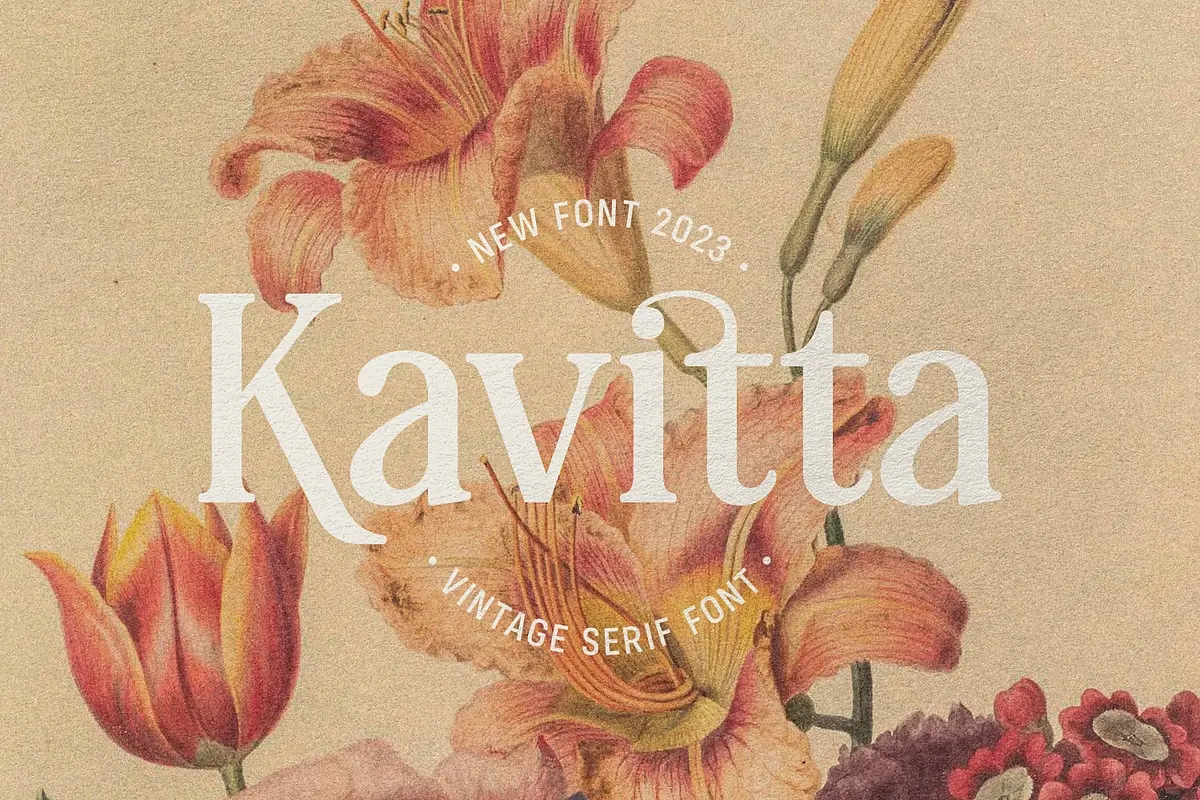
Kavitta - Modern Vintage Serif Free Download
Kavitta - Modern Vintage Serif Font Free Download
Please note, you must purchase this font for commercial use. However, you can easily download Kavitta - Modern Vintage Serif Font Free Download for personal use and testing purposes. Kavitta - Modern Vintage Serif Font is a stylish blend of modern and vintage design elements, offering sophisticated letterforms with a timeless appeal. Perfect for branding, editorial design, logos, and invitations, this font brings a refined, classic touch to any project. Whether you're working on a luxurious brand identity, a high-end magazine layout, or elegant stationery, Kavitta - Modern Vintage Serif Font Free Download will elevate your typography with its unique, vintage-inspired flair. Download Kavitta - Modern Vintage Serif Font Free Download today and explore its potential before opting for a commercial license.